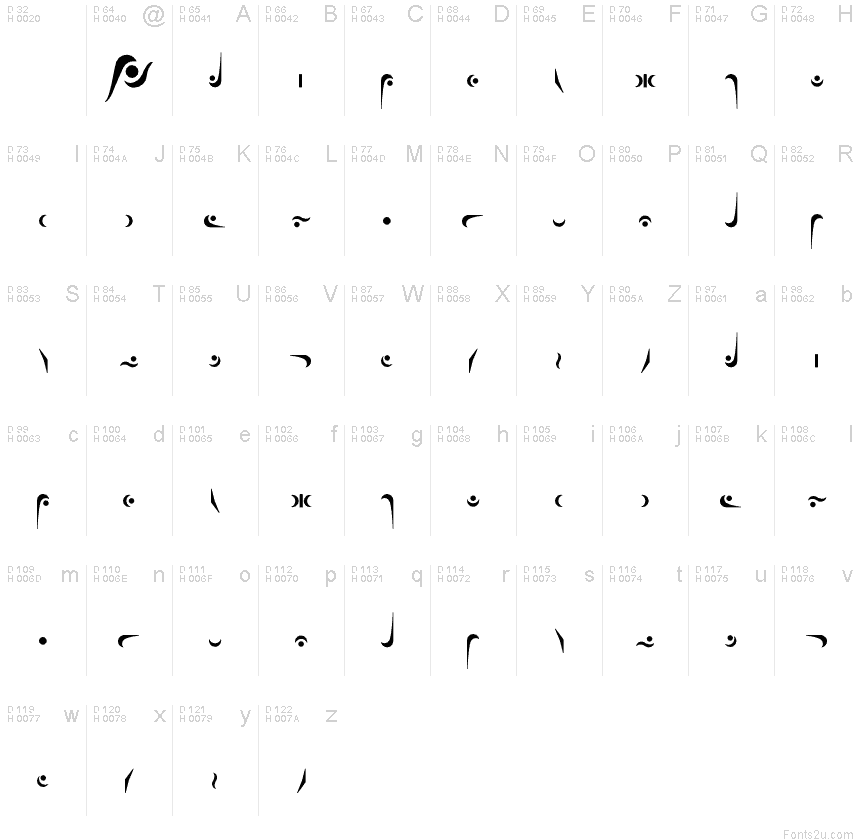
Furling by Nick Polyarush of Ancient is a free alien glyph font with an elegant, sharply modulated silhouette. Its broad crescents, needle-like strokes, detached dots, and generous internal gaps make the symbols look both organic and engineered.
A science-fiction game studio or electronic music label could use it to build an enigmatic identity across logos, promotional posters, packaging, and merchandise. The lettering feels like a coded transmission. In publishing, it could turn chapter openers or cover details into recurring artifacts from a fully imagined culture rather than ordinary text.
Furling
Nick Polyarush
Furling Script from Stargate SG-1